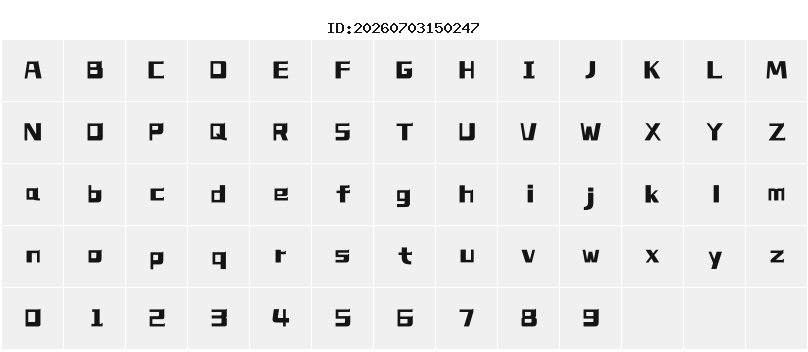
272-上首青瓦体 Preview
• Font Name: 272-上首青瓦体
• Font ID: 272-SSQingYaTi:Version 4.00
• Full Font Name: 272-上首青瓦体
• Version: Version 4.00 December 23, 2023
• PostScript Name: 272-SSQingYaTi
• Character Count: 7567
• Manufacturer: 上首造字
About 272-上首青瓦体.ttf
272-上首青瓦体.ttf is a modern, elegant sans-serif font designed for ultimate readability and visual harmony. Perfect for branding, headlines, web design, and print materials.